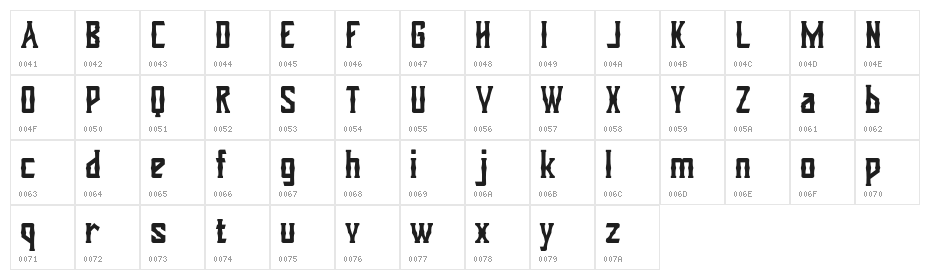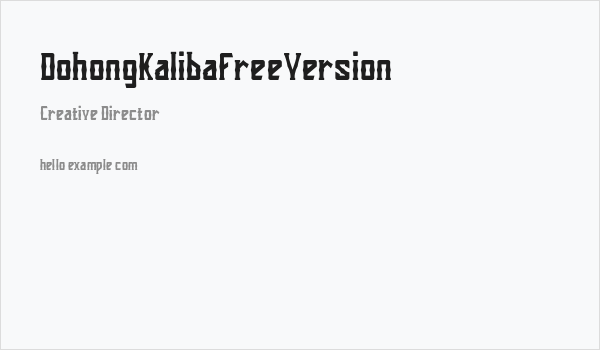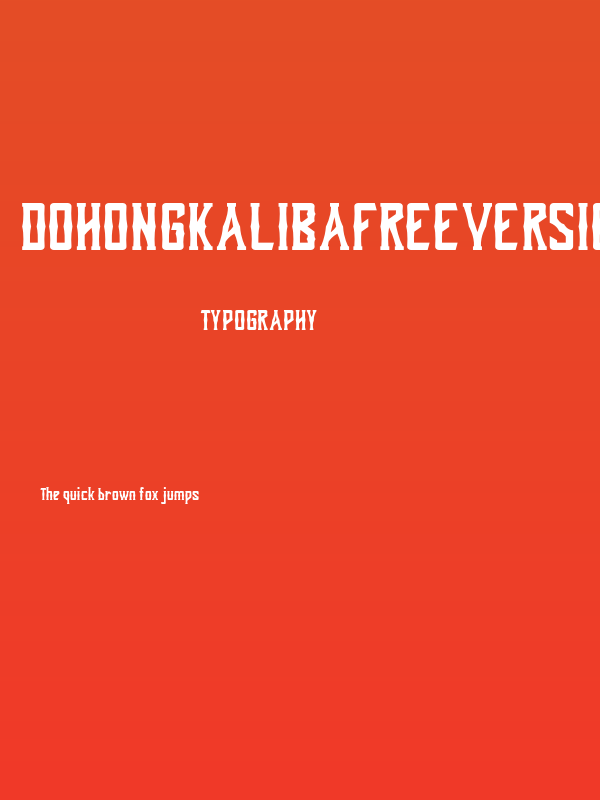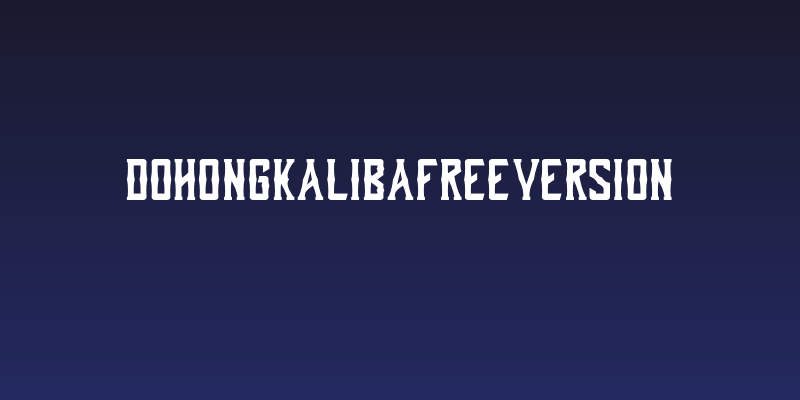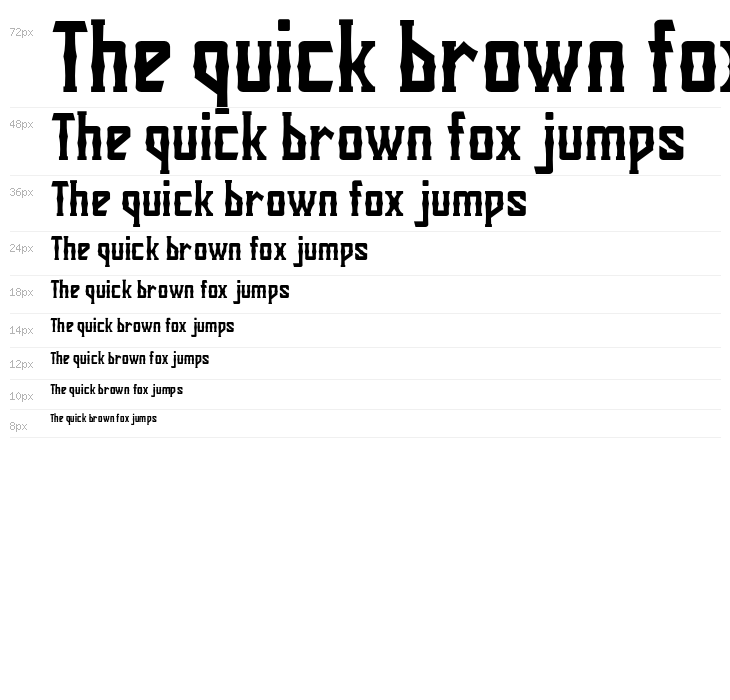
DohongKalibaFreeVersion Font
DohongKalibaFreeVersion Description
This font features a bold and striking design with sharp, angular edges and a strong presence. The uppercase letters are tall and commanding, while the lowercase letters maintain a consistent style with slightly more rounded forms. The numbers and special characters follow the same bold and angular aesthetic, making them stand out prominently. The overall appearance is reminiscent of a modern, industrial style, suitable for making a strong visual impact. The font's unique character shapes and bold weight make it ideal for attention-grabbing headlines or logos.
| Proposed Projects | Ideal for branding, logos, posters, and headlines that require a strong visual impact. |